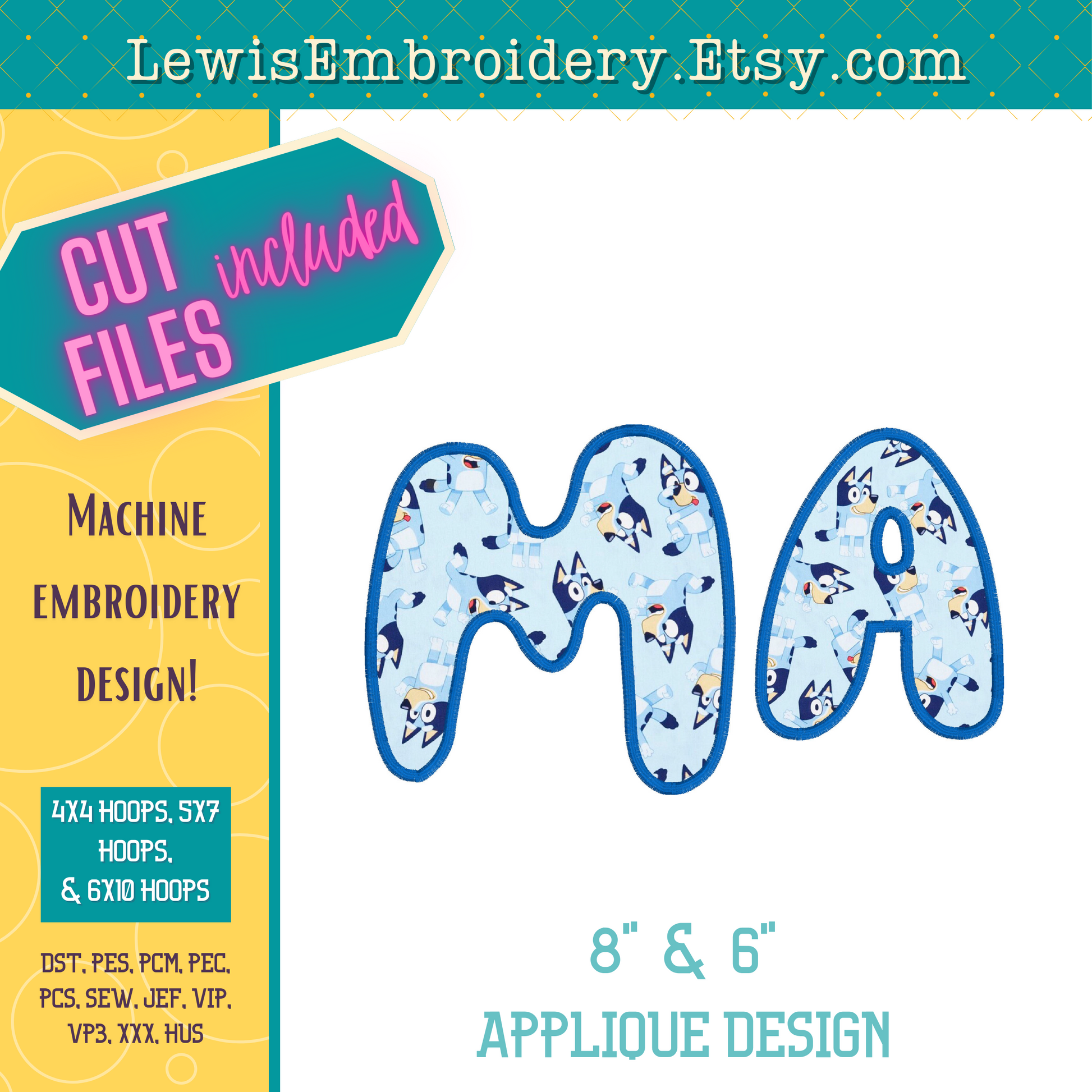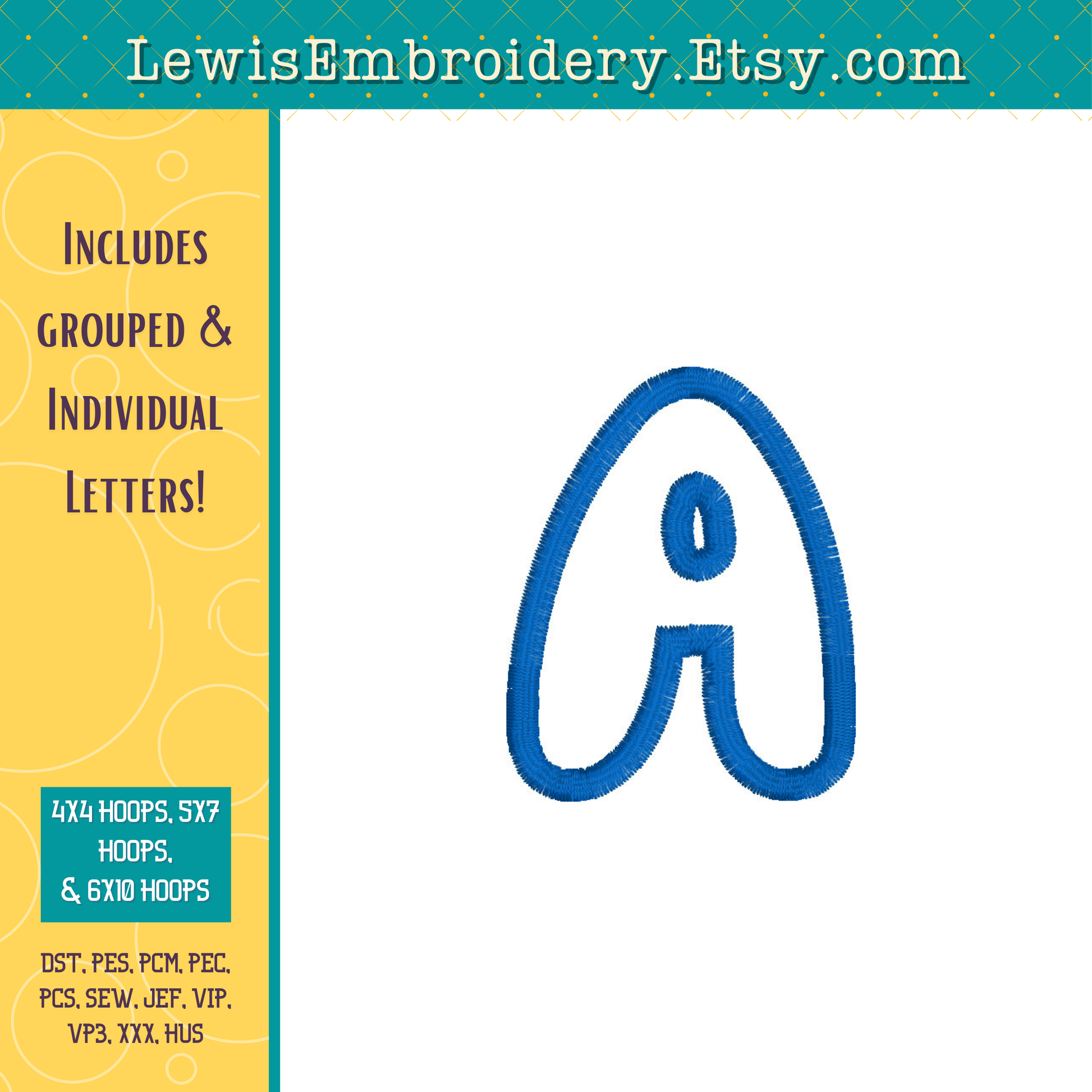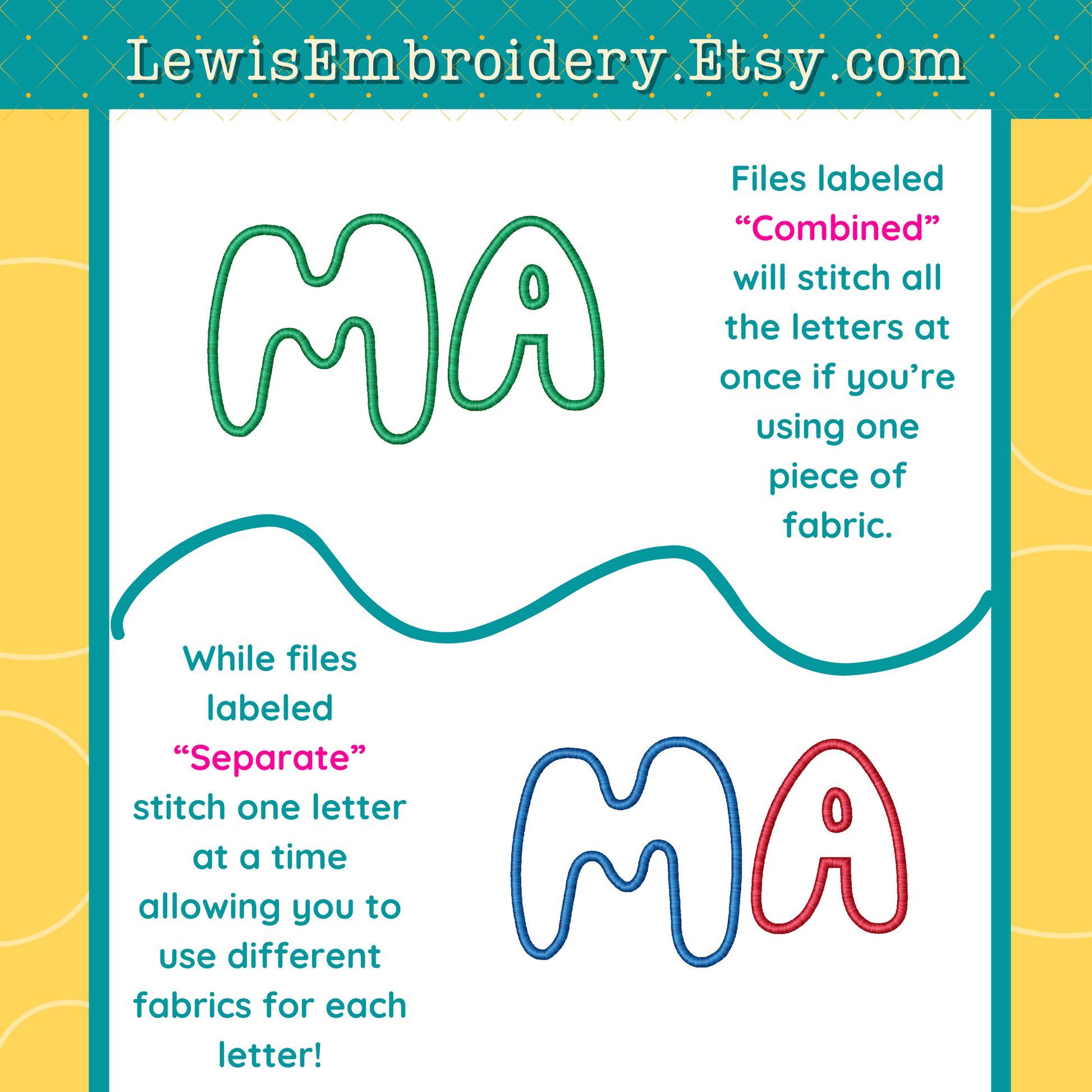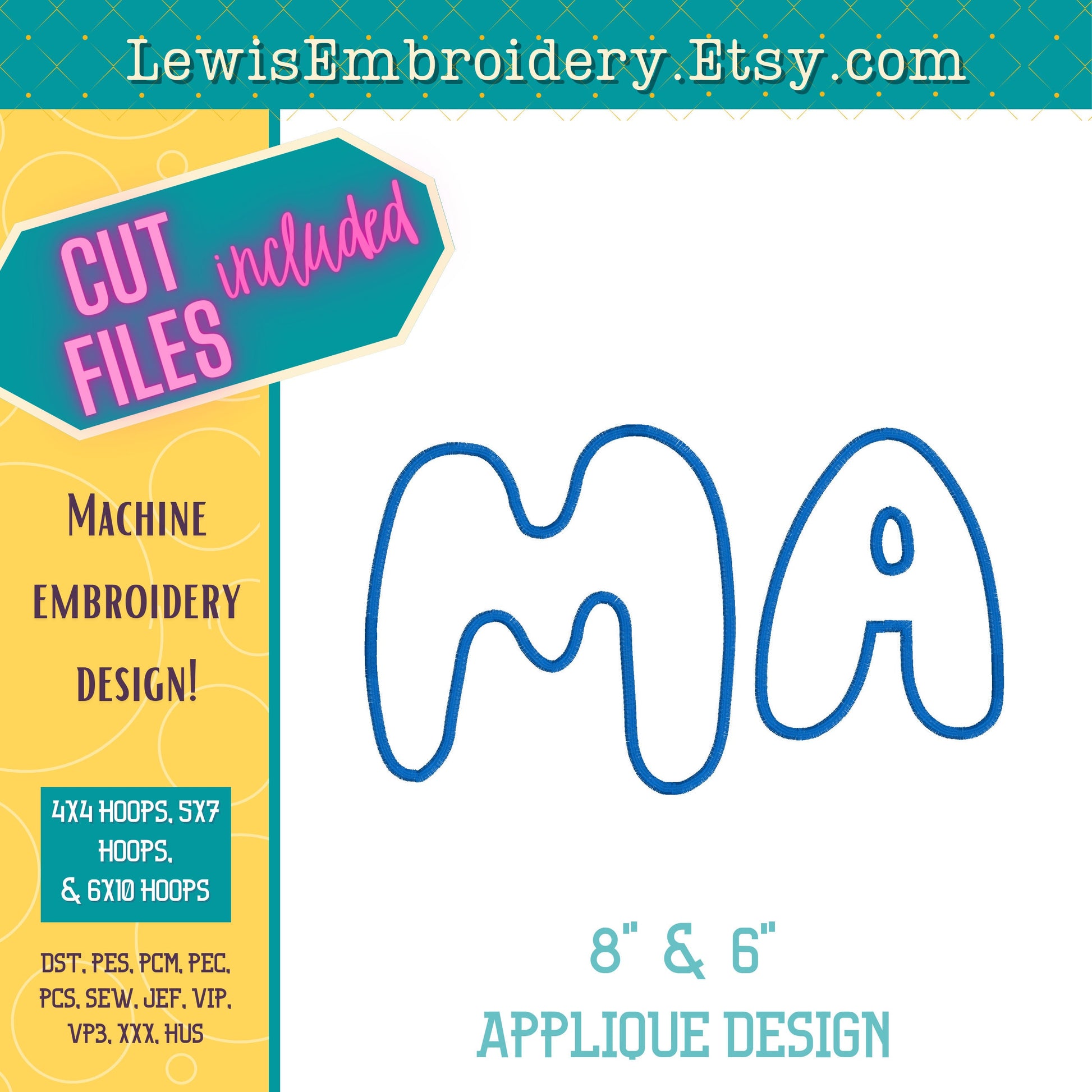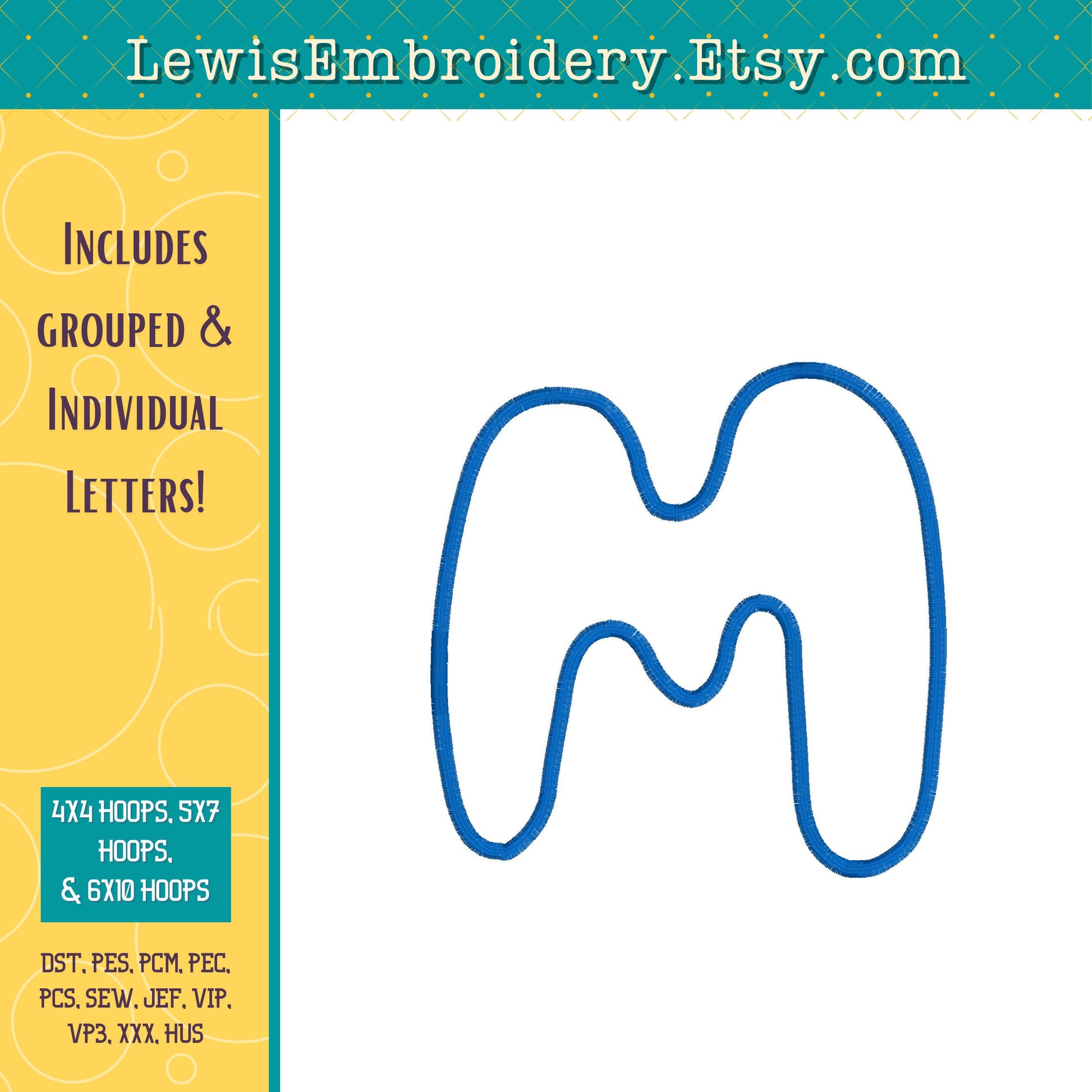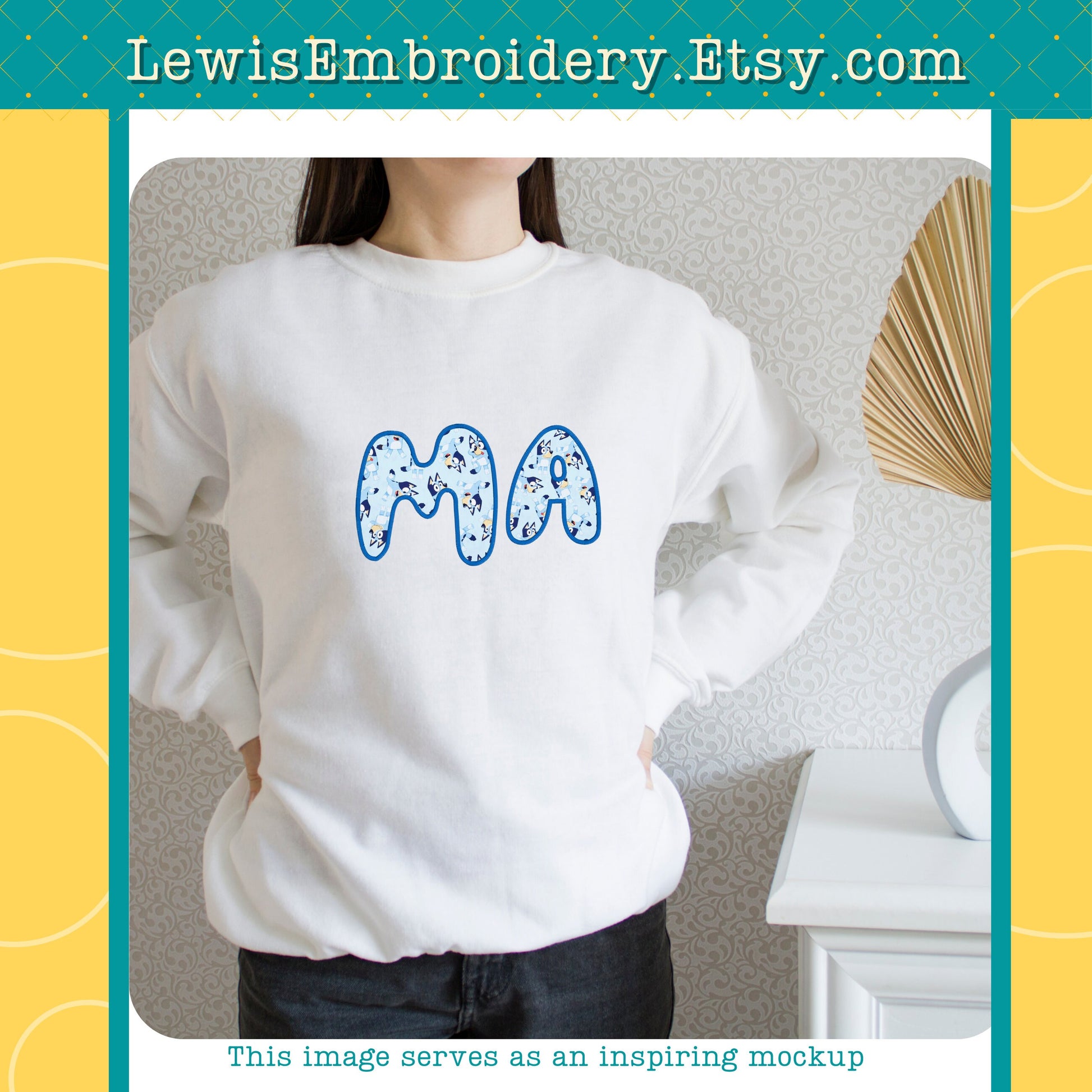
"MA" Applique, Machine Embroidery Design – NOT Full Bluey Font - (Digital Download)
We all know how popular these MAMA shirts have been! Here is a fun twist for all the Bluey fans out there.
- "MA" design in our fun Bluey font (not full font)
- Cute handmade look